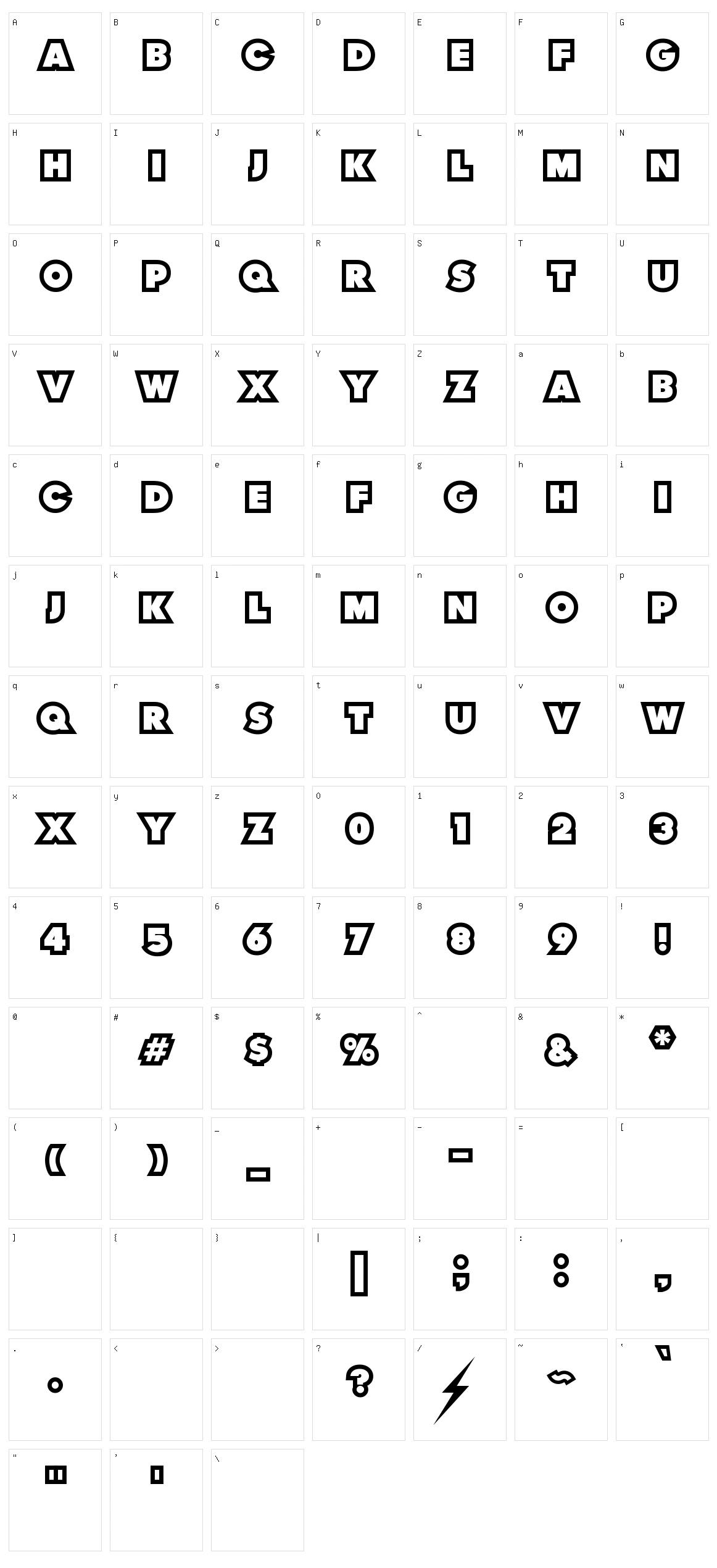
TrueTypeFont: Thunder Lord
Sharkshock Productions
Hi there font fans! Tired of your everyday bold type? Need something with a little more punch? Need a hero? Enter Thunder Lord. This outlined variant of Raiderfont is a faithful translation with
a few tweaks and changes. This display font features only uppercase letters and limited punctuation. The lightning bolt can be keyed by pressing the slash button. There are European accents and